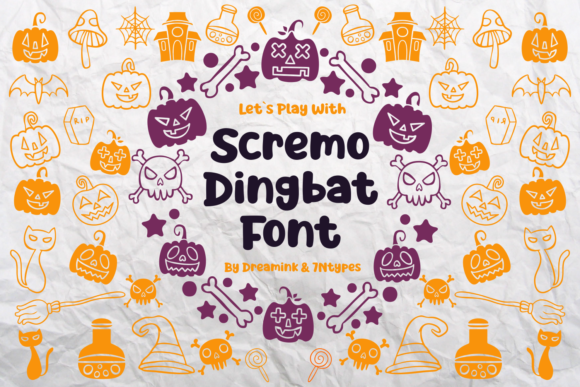
Prepare to embark on a devilishly delightful typographic adventure with Scremo Font, your ultimate companion for crafting chillingly captivating Halloween-themed designs! Dreamink (7ntypes), the masterminds behind this font, have conjured a spellbinding collection of spooky symbols that will send shivers down your spine and leave your audience spellbound.
Unleash your creativity and let the ghoulish charm of Scremo Font cast its magic on your Halloween invitations, posters, flyers, and more. Its playful and macabre dingbats will enchant your designs, making them the talk of any haunted house or trick-or-treating expedition.
Picture this: your Halloween party invites adorned with Scremo Font's grinning jack-o'-lanterns, dancing skeletons, and spine-tingling bats, promising an evening of spooky thrills and chills. Your posters will come alive with haunted mansions, witches cackling under the moon, and eerie graveyards, sending shivers down the spines of passersby.
And oh, the T-shirts! Imagine your friends and family sporting T-shirts emblazoned with Scremo Font's playful ghosts, mischievous black cats, and spooky candies, spreading Halloween cheer wherever they go.
With Scremo Font, the possibilities are endless. Let your imagination run wild and create designs that will make your Halloween celebrations truly unforgettable. Embrace the dark side of typography and let the Scremo Font be your guide through this enchanting journey.
So, dare to be different this Halloween! Embrace the Scremo Font and let your designs speak volumes of eerie elegance and spooky sophistication.